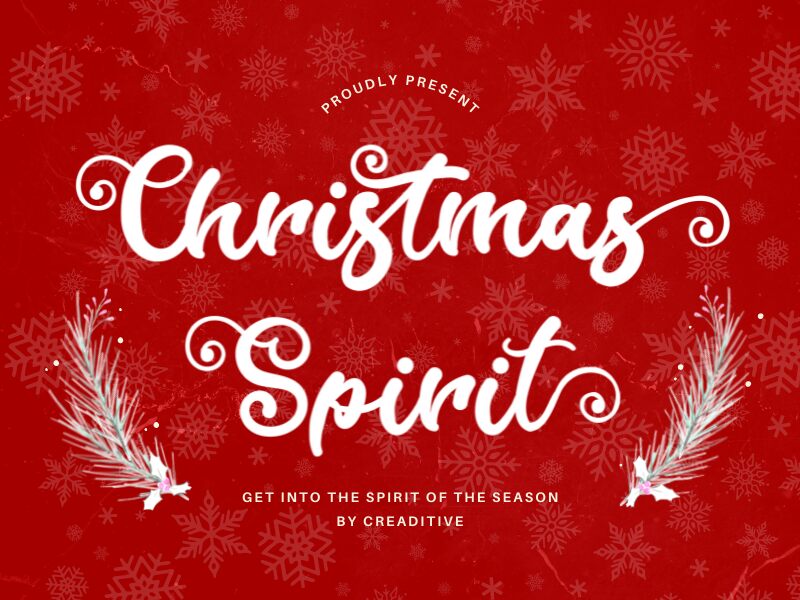
Christmas Spirit
Christmas Spirit font by Creaditive Design is a free calligraphy font with an artistic flair designed for adding a cheerful mood to your typography. This festive and decorative typeface boasts flourished elements with a whimsical appearance, flourishing details, and classic calligraphy letters.
The use cases include Christmas greeting cards, invitations, seasonal advertising designs, posters, packaging design ideas printed on boxes or wrapping paper. Use it in gift card designs for the jolly season as well.